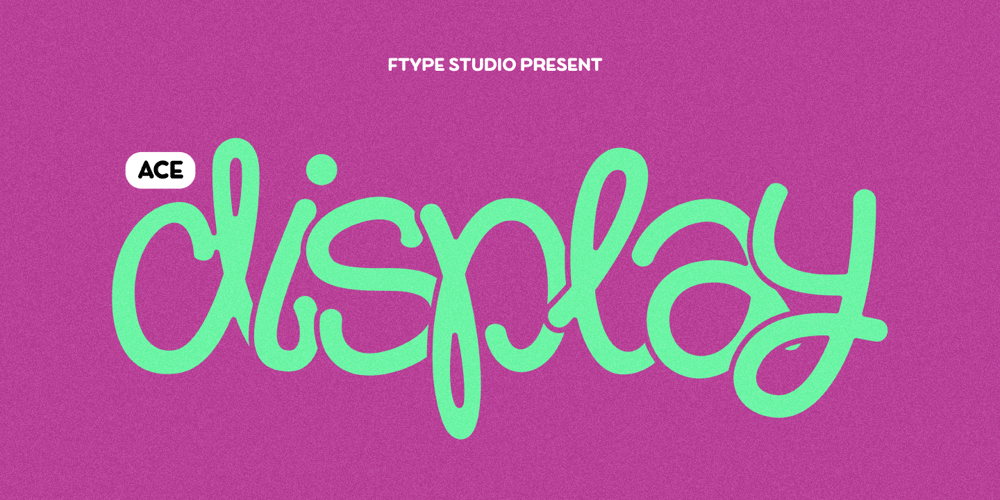
Ace Display
Ace Display font
Ace Display Font Family was designed by Wahyu Rahmawan and published by Factory738. Ace Display contains 18 styles and family package options. Meet Ace Display Font Family – the font family with 18 styles, featuring round corners on uppercase and a script style on lowercase. It’s all about bringing a modern, relaxed vibe to your designs! Like the trendsetter of fonts, Ace Display rocks a unique blend of minimalism and creativity for that extra cool factor. With clean, rounded uppercase letters and elegant, flowing lowercase script, Ace Display offers endless possibilities. It’s perfect for making headlines pop, refreshing your branding, or adding a splash of style to posters, logos, and magazines – you name it! Plus, it’s not just any font – it boasts variable font magic and multilingual support. Time to give your words a stylish and distinctive makeover!